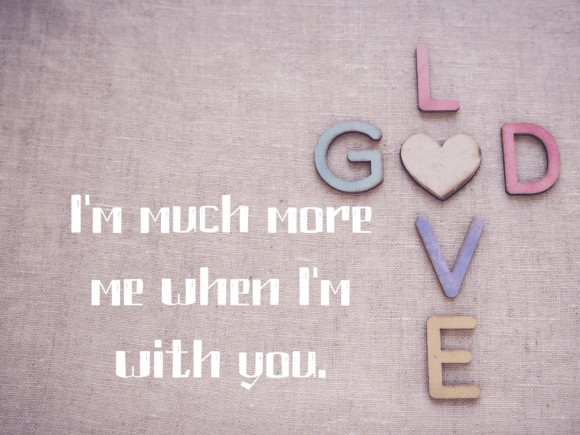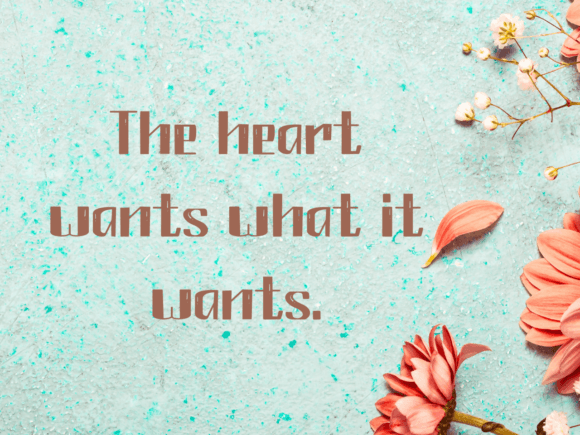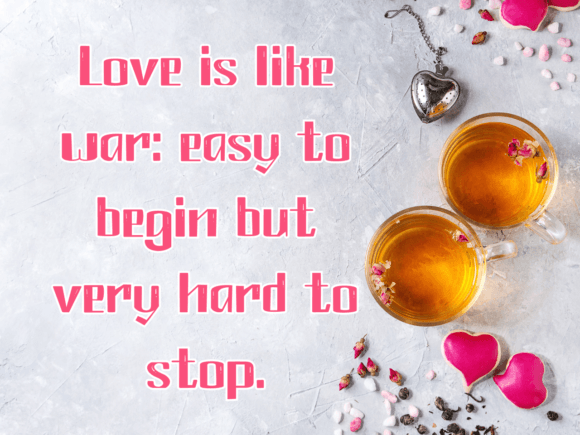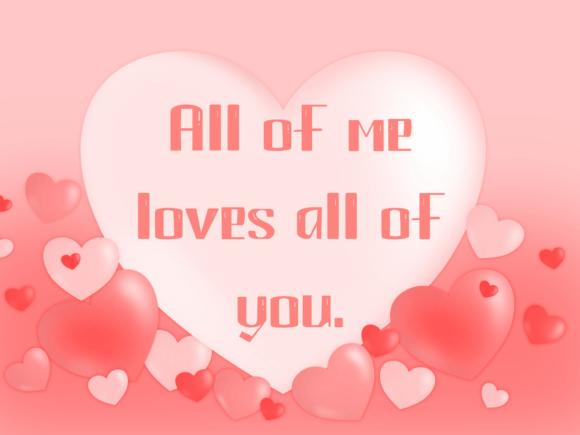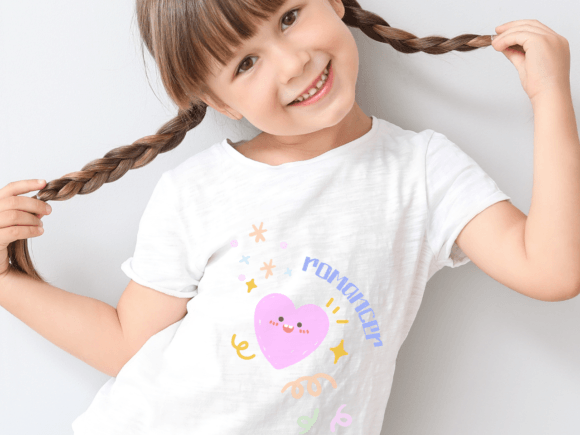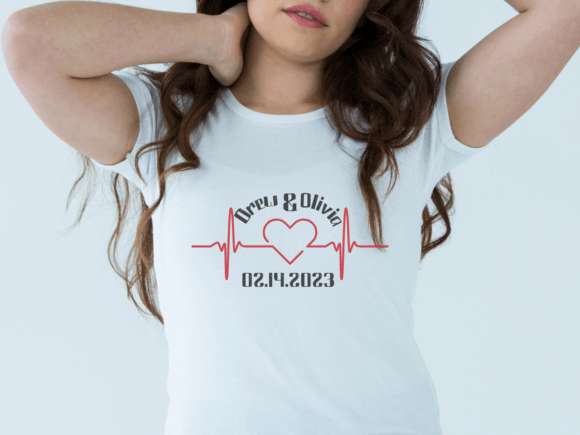
Introduction to Shon Font
Shon.
It’s a font that has angular play, making the font design different It has its own identity.
Key Features of Shon Font